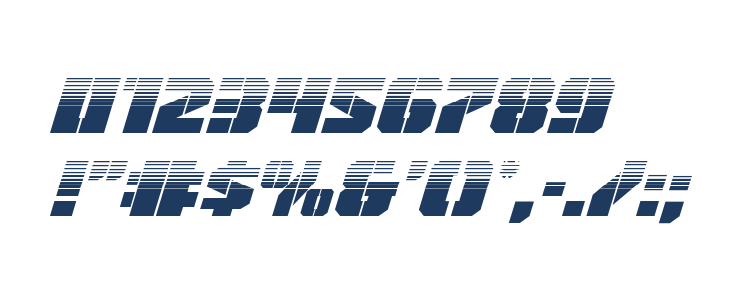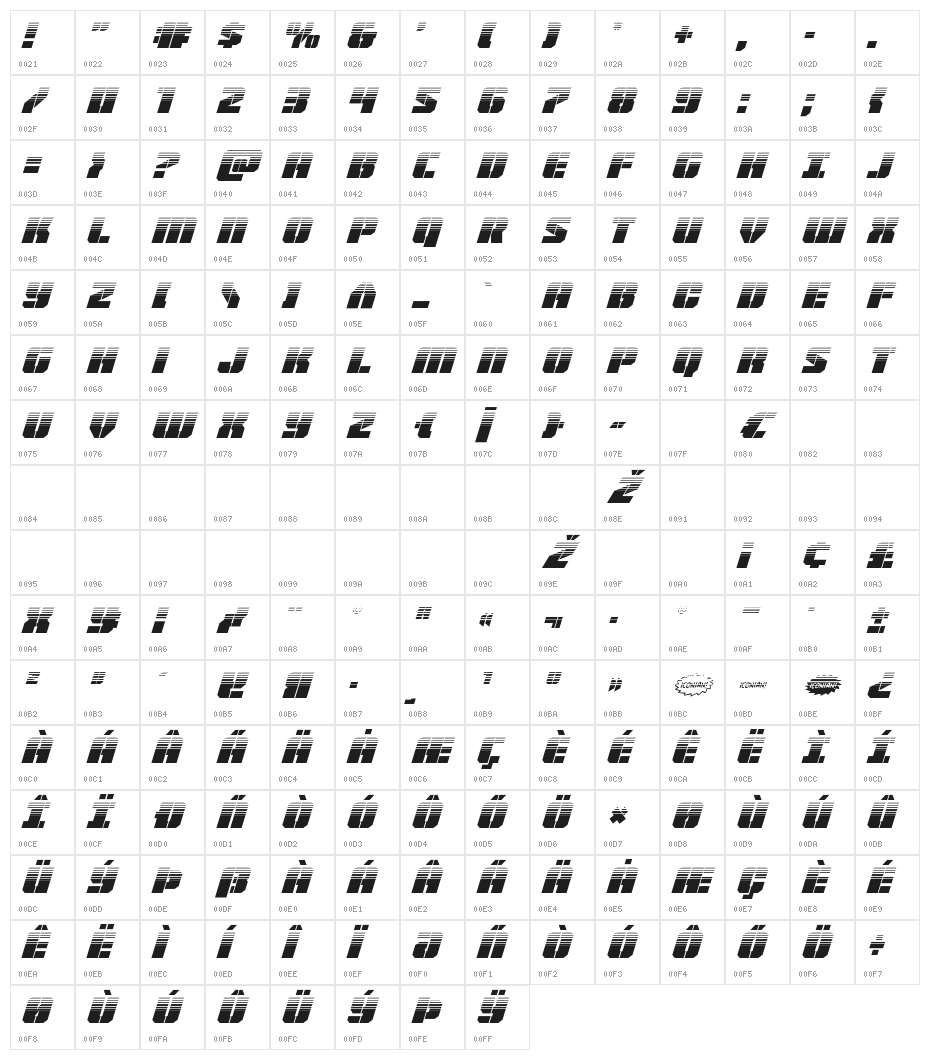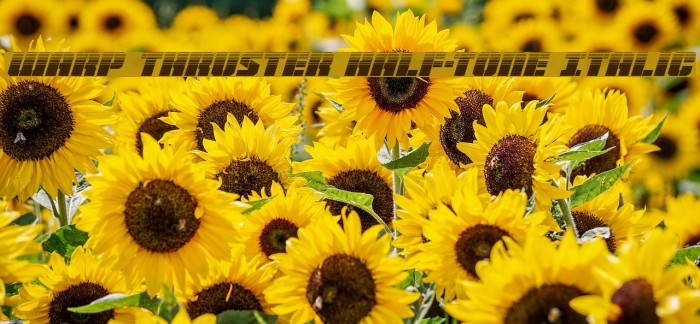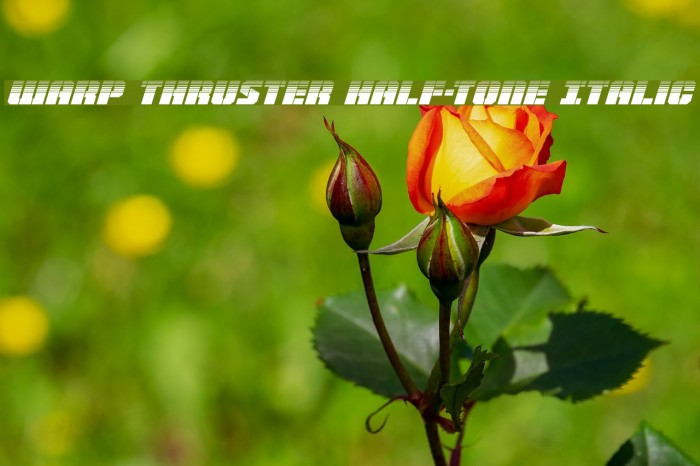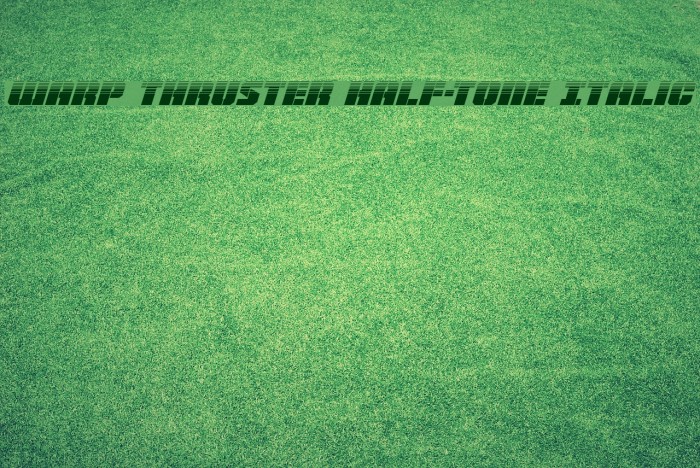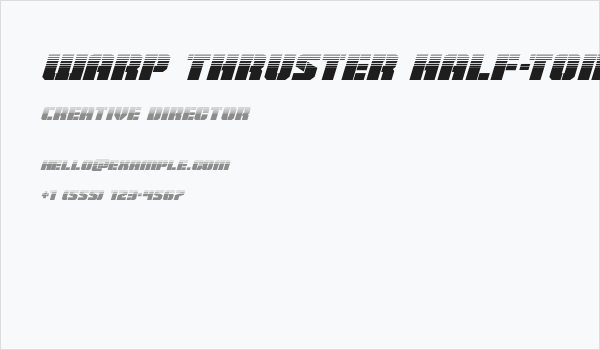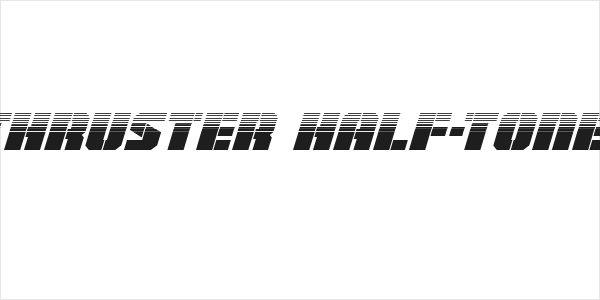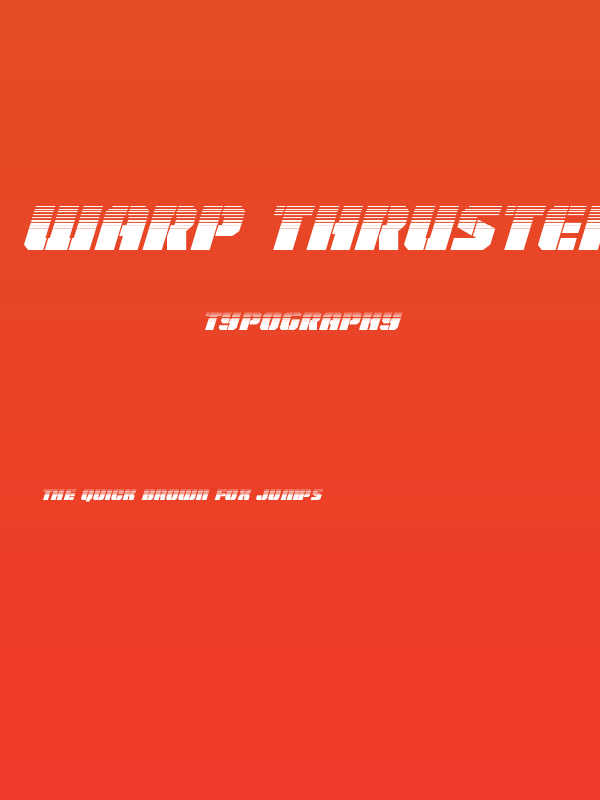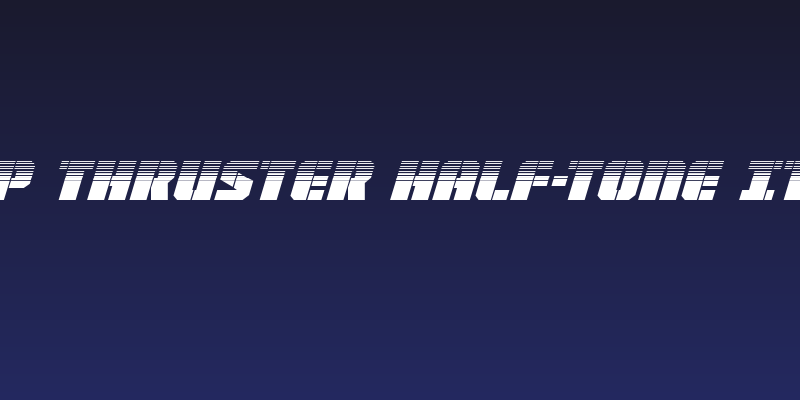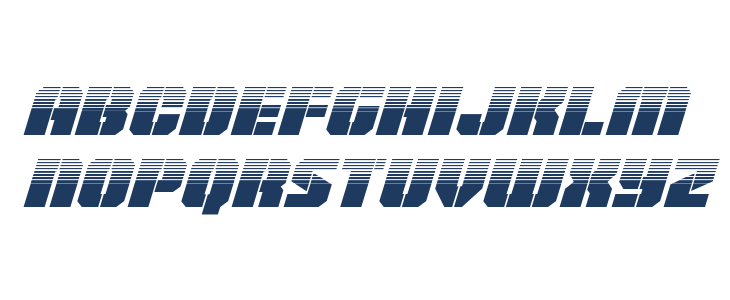
Warp Thruster Half-Tone Italic Font
Warp Thruster Half-Tone Italic Description
This font features a dynamic and futuristic design, characterized by its bold, italicized letters that give a sense of motion and speed. The half-tone effect adds a unique texture, creating a layered, almost three-dimensional appearance. Each character is constructed with a series of horizontal lines that taper off, enhancing the illusion of movement. The uppercase and lowercase letters maintain a consistent style, with sharp angles and a slightly condensed form. Numbers and special characters are equally stylized, making this font ideal for projects that require a modern, tech-inspired aesthetic.
| Overall Style | Futuristic, Dynamic |
| Proposed Projects | Perfect for sci-fi themed posters, video game titles, tech branding, and futuristic advertisements. |